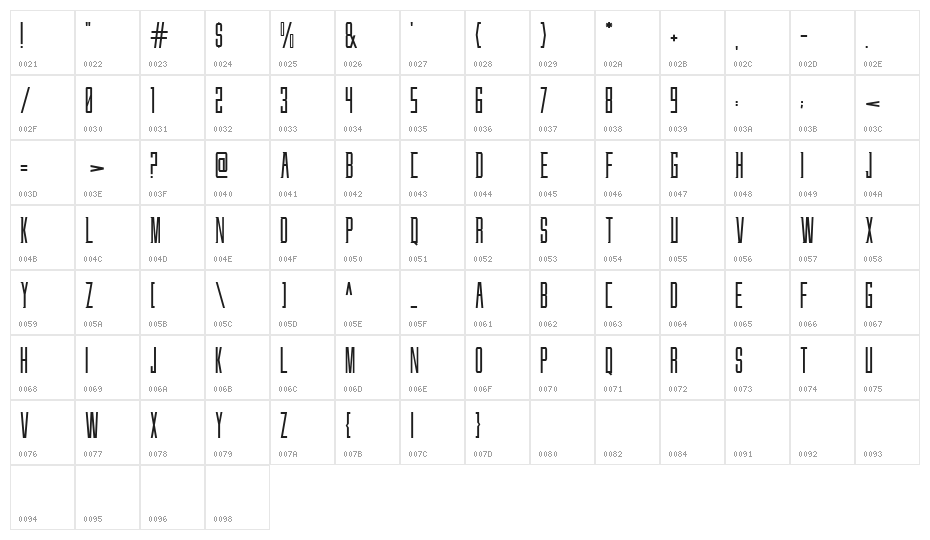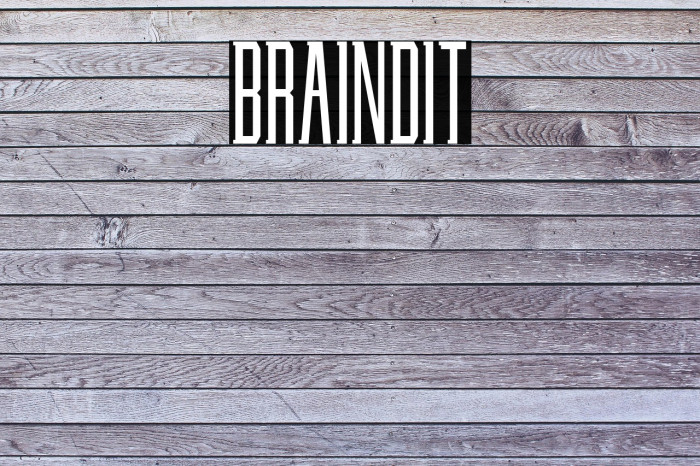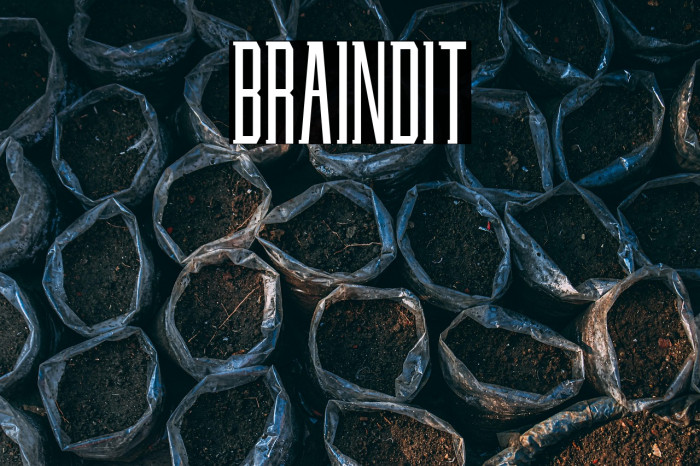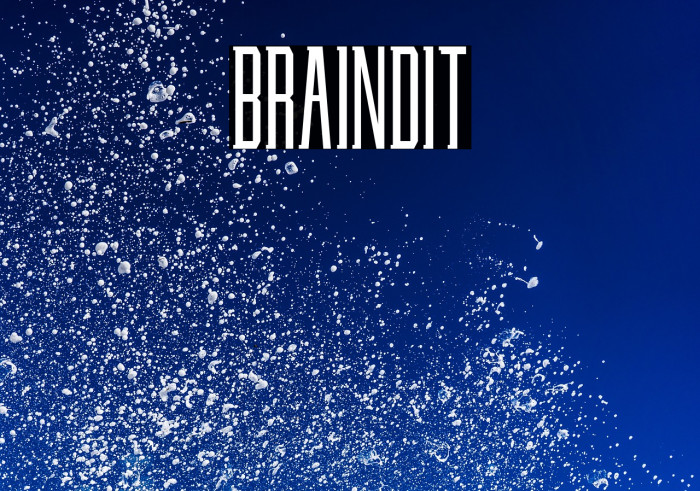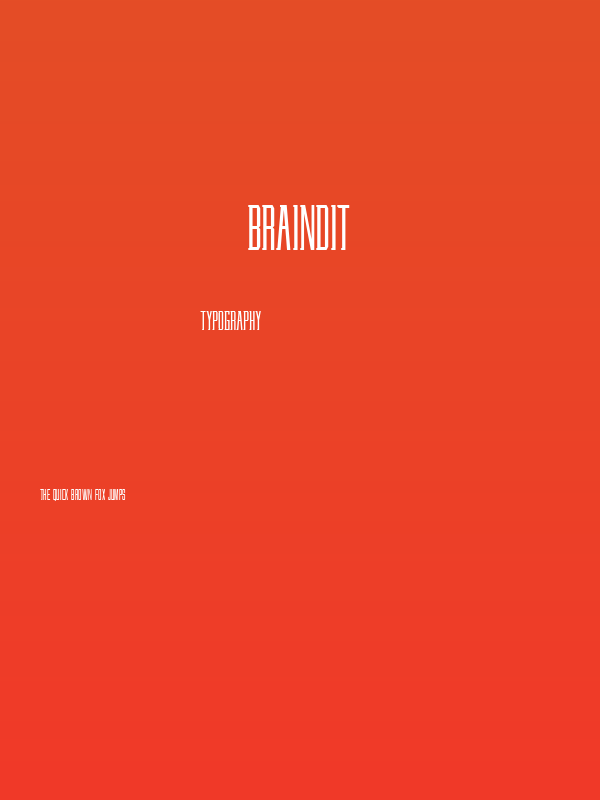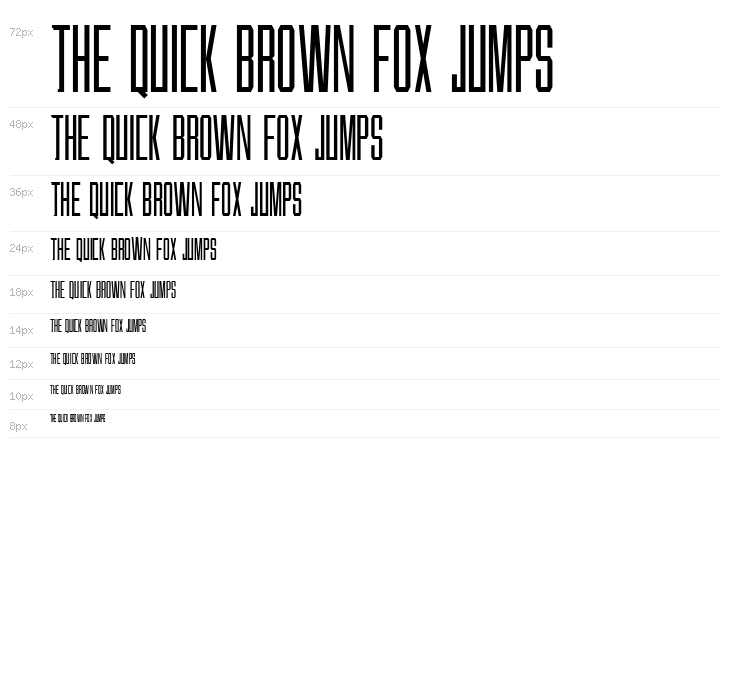
BRAINDIT Font
BRAINDIT Description
This font features a tall and narrow design, characterized by its elongated letterforms and sharp edges. The uppercase letters are uniform in height, creating a cohesive and structured appearance. The numerals and special characters maintain the same vertical emphasis, ensuring consistency across all glyphs. The font's clean lines and geometric shapes give it a modern and sleek look, suitable for projects that require a bold and impactful visual statement.
| Proposed Projects | Ideal for headlines, posters, branding, and any design that requires a strong and modern aesthetic. |